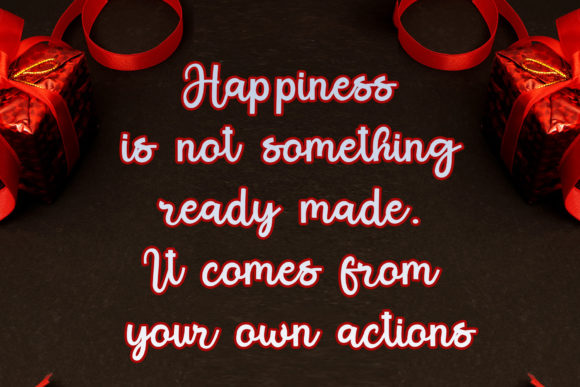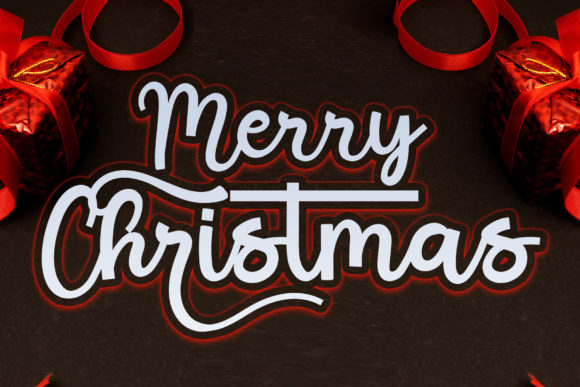
Critical Font
db-ku.com - Script & Handwritten -- Critical is a romantic and sweet modern calligraphy typeface with characters dancing along the baseline.This font is PUA encoded which means you can access all the amazing glyphs and ligatures with ease!